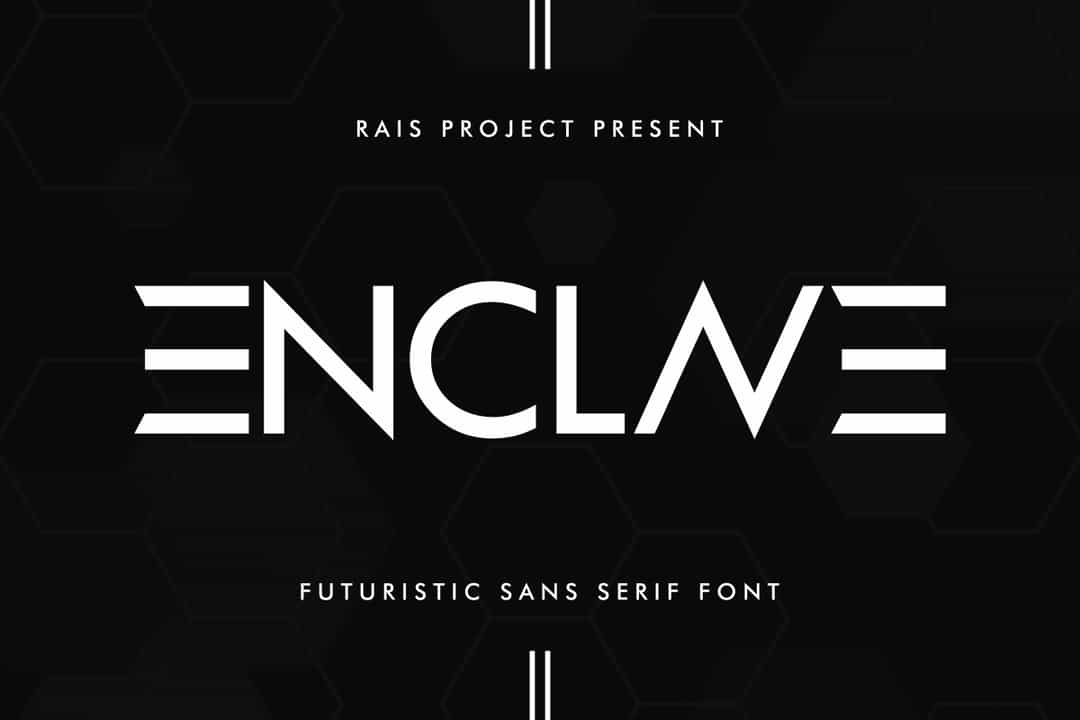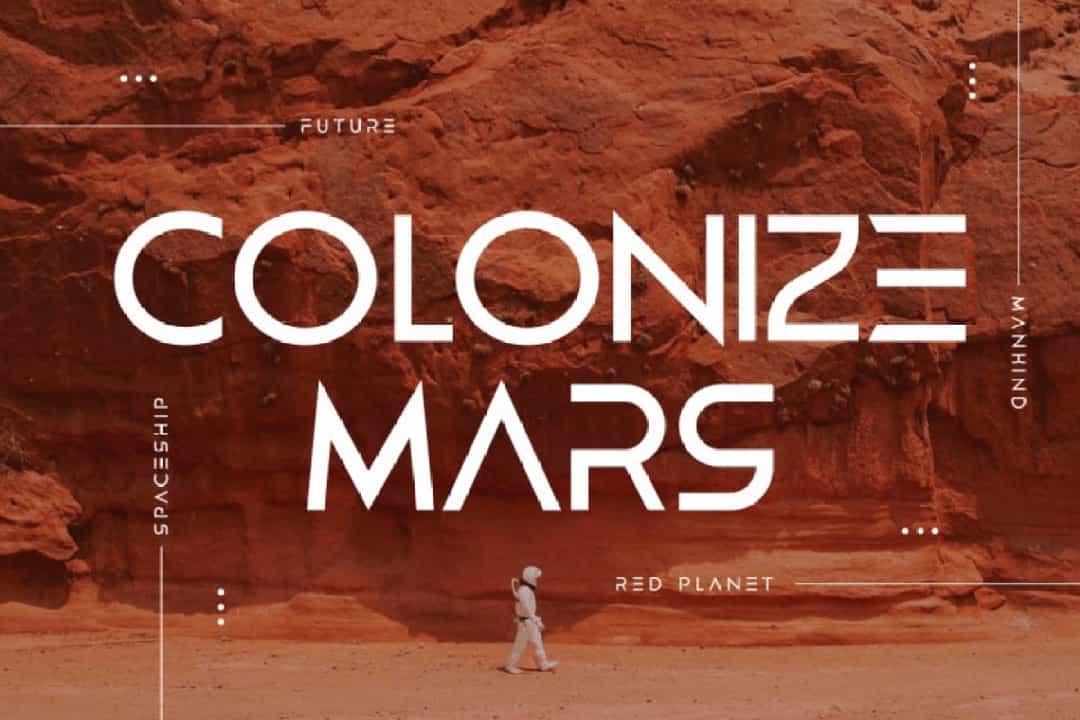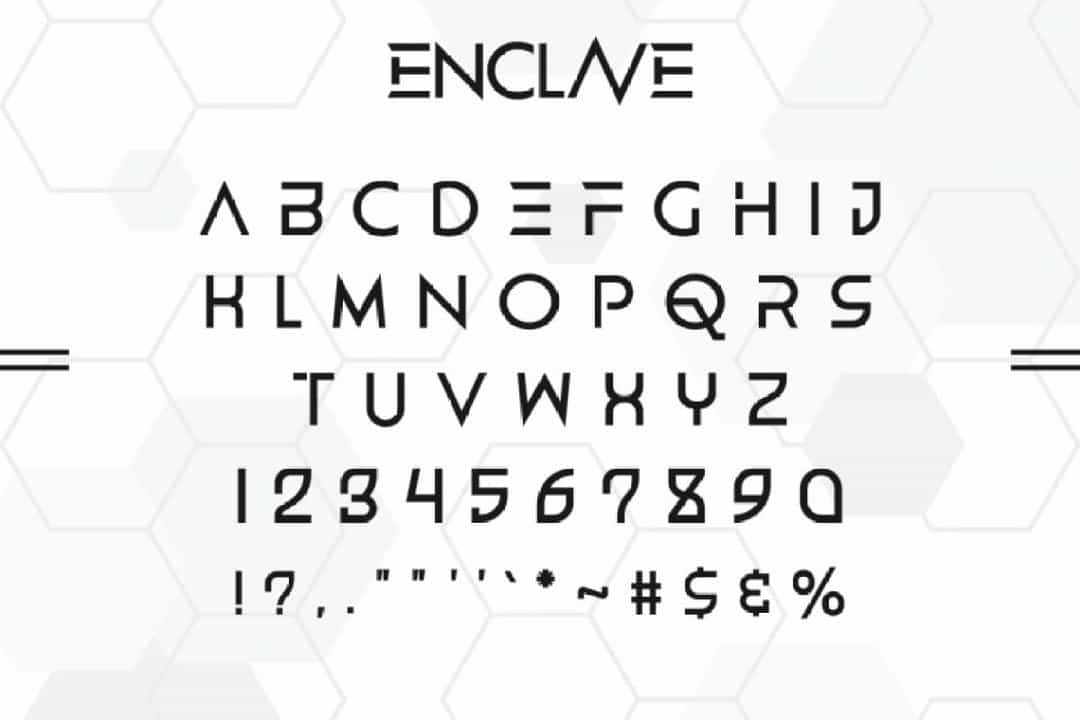
ENCLAVE is a specific, display futuristic sans serif typeface developed by Rais Project, and suitable for application in design works, for instance, headlines, promotional events, branding ads, magazines, invitations, signage stationery, and social media labels needing bold designs.